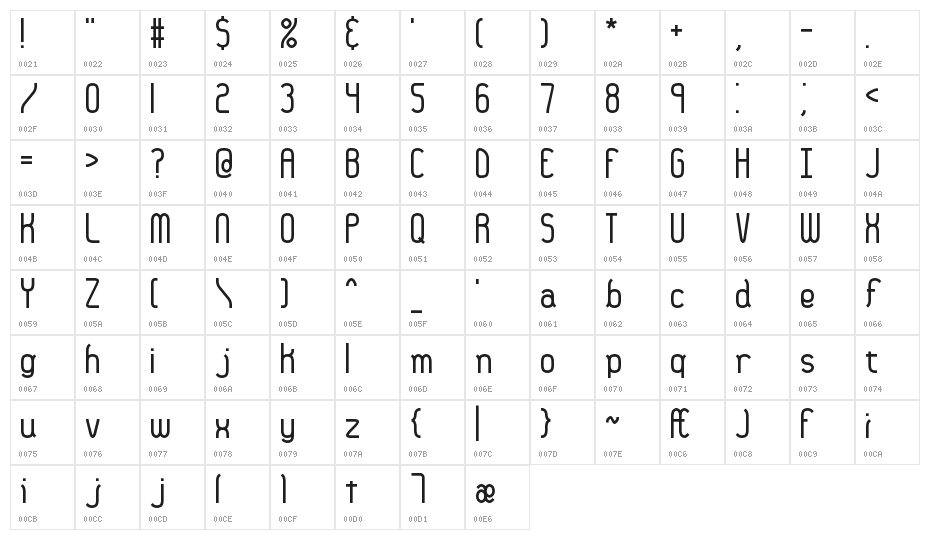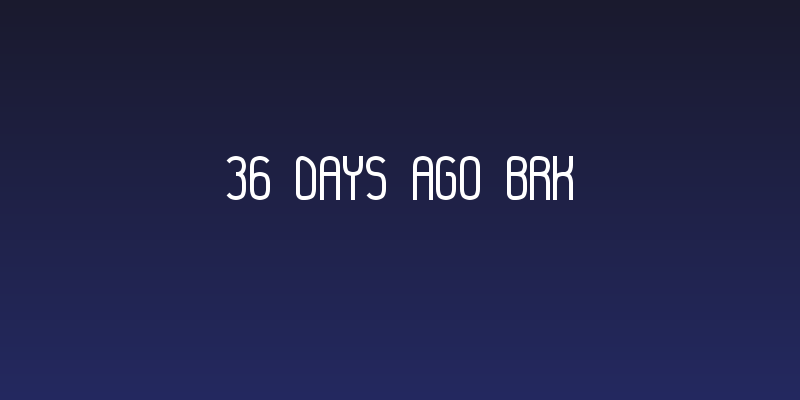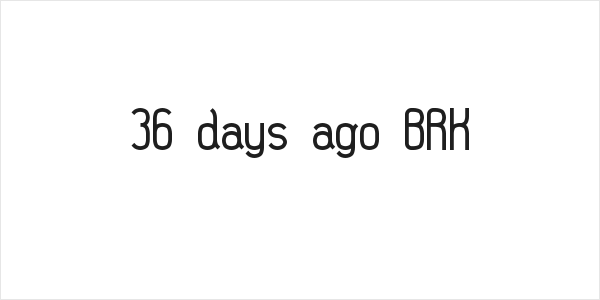
36 days ago BRK Font
36 days ago BRK Description
This font features a modern and geometric design with rounded edges and a clean, streamlined appearance. The uppercase letters are tall and narrow, while the lowercase letters maintain a consistent height, creating a harmonious balance. The numerals are distinct and easy to read, with a uniform width that complements the overall style. Special characters are designed with the same attention to detail, ensuring they integrate seamlessly with the rest of the font. The font's simplicity and clarity make it versatile for various design applications.
| Use Case | Headlines, Logos, Digital interfaces |
| Proposed Projects | Ideal for branding, advertising, digital interfaces, and editorial design projects. |